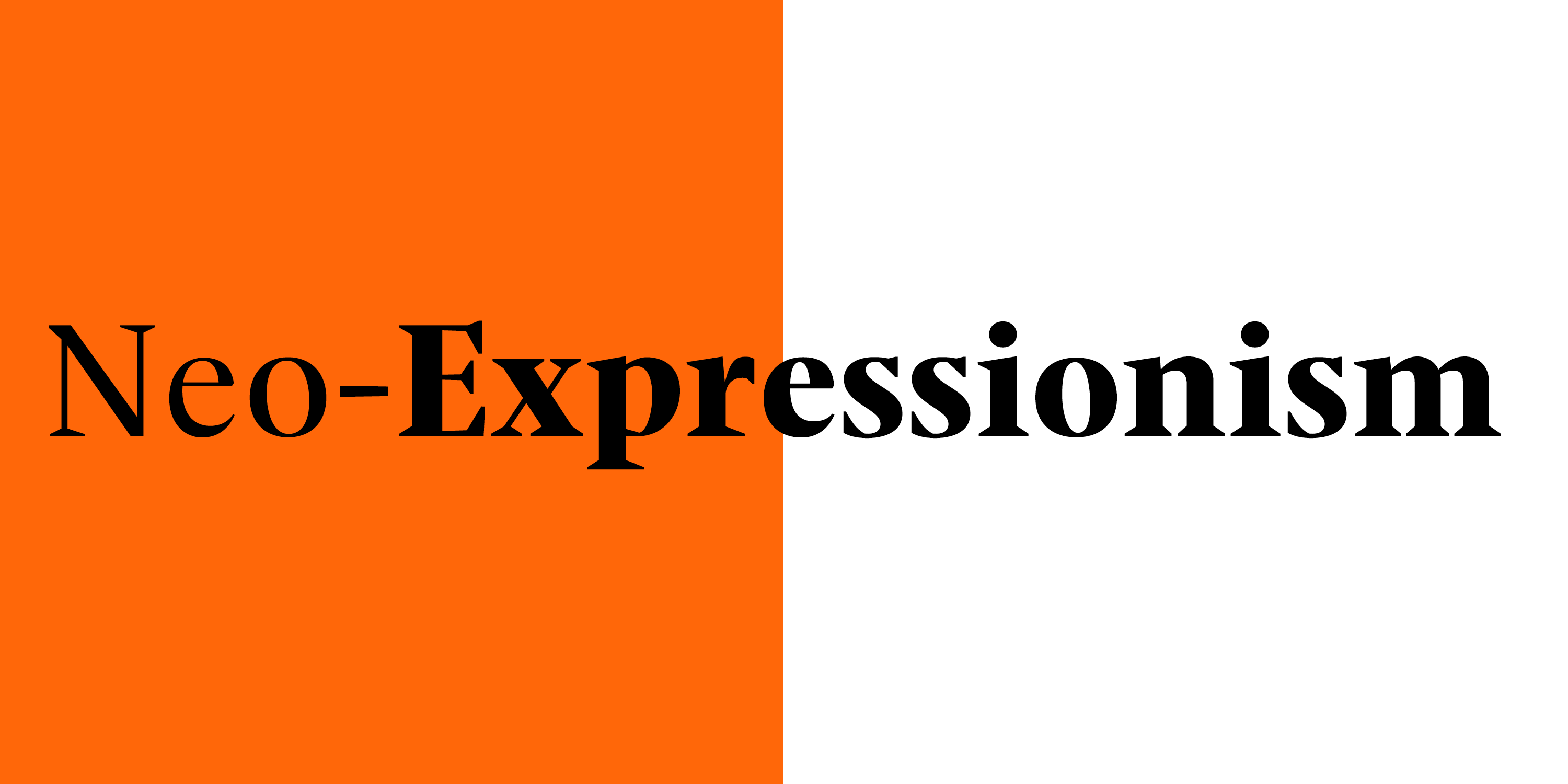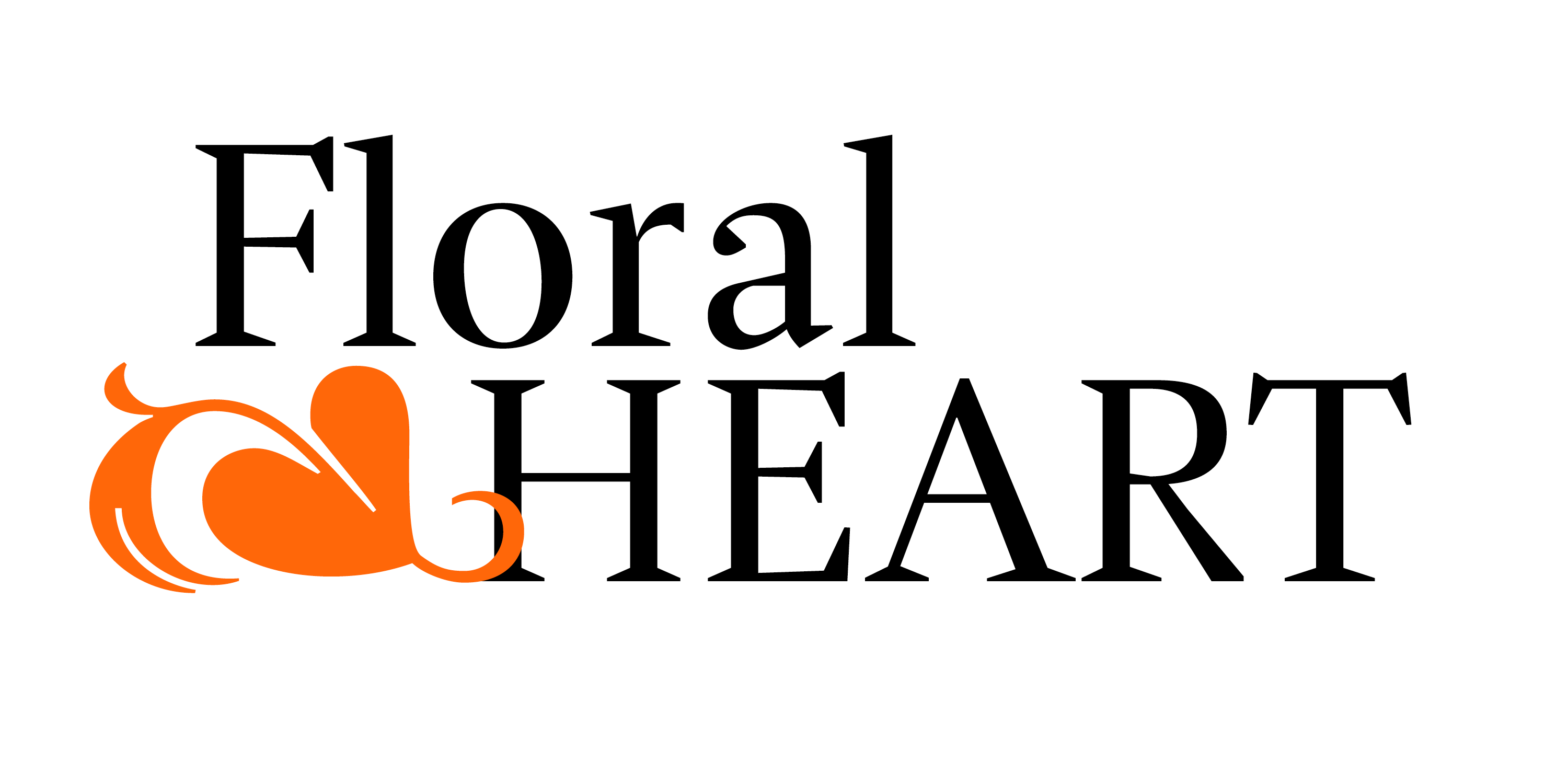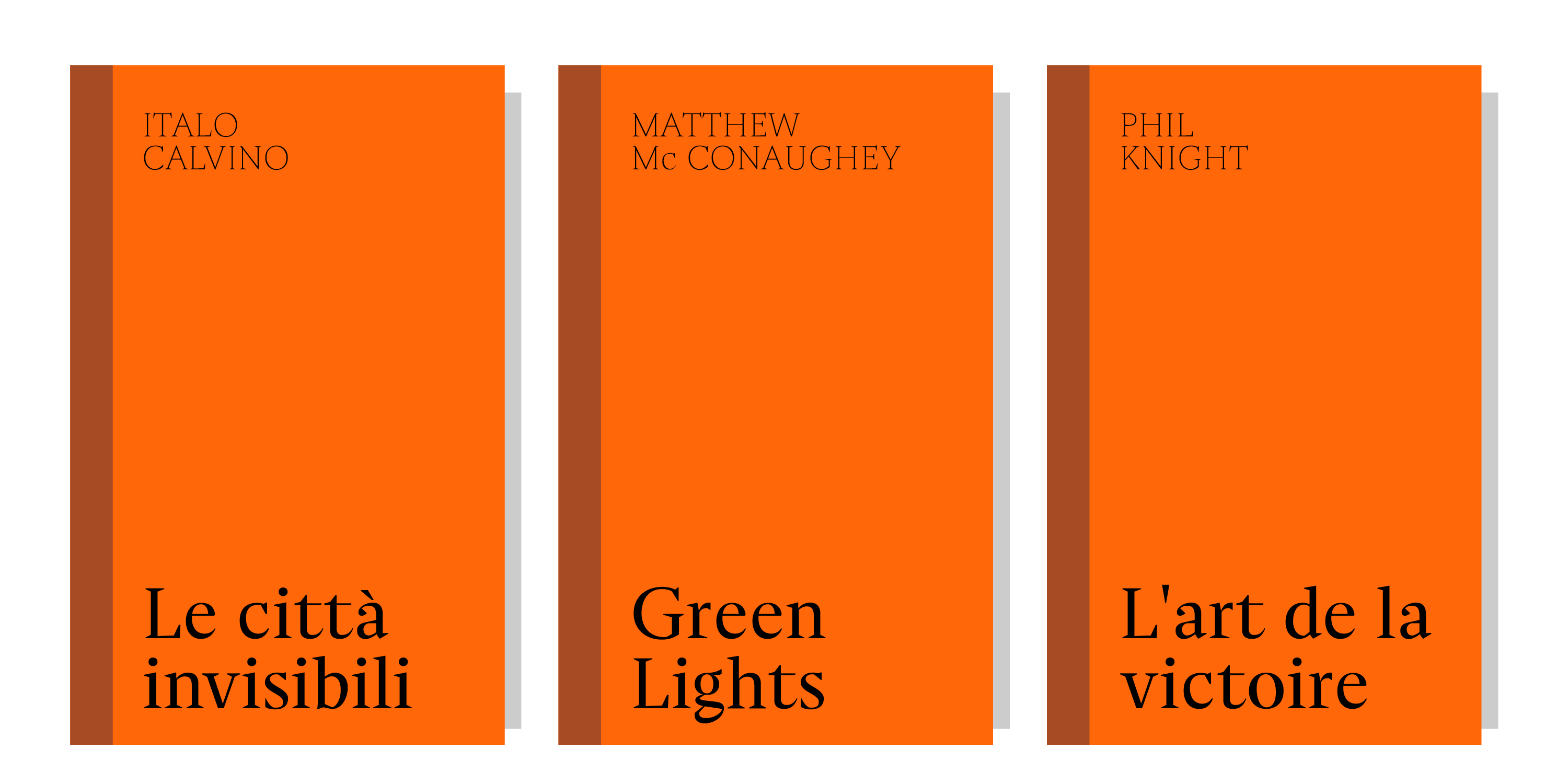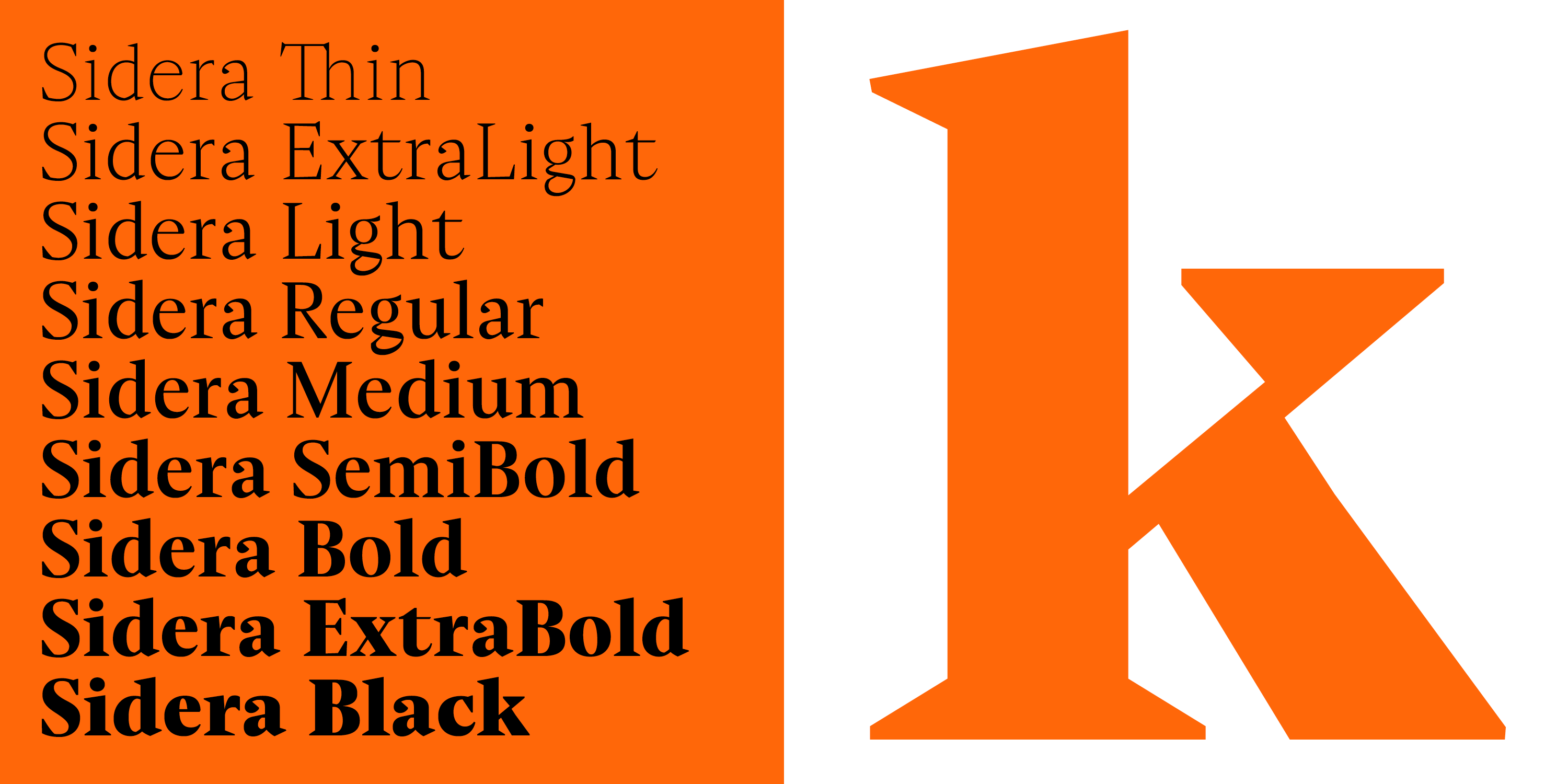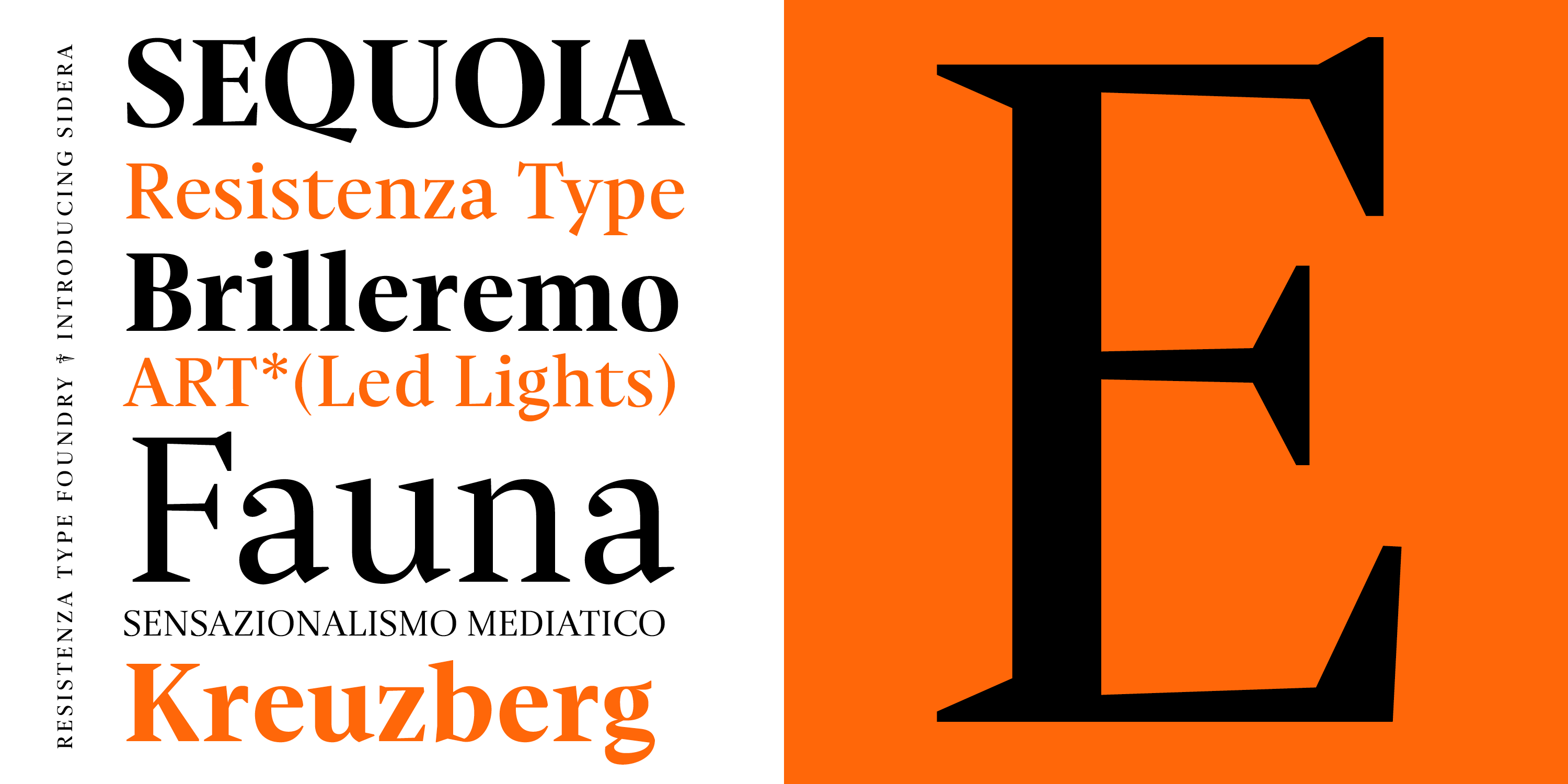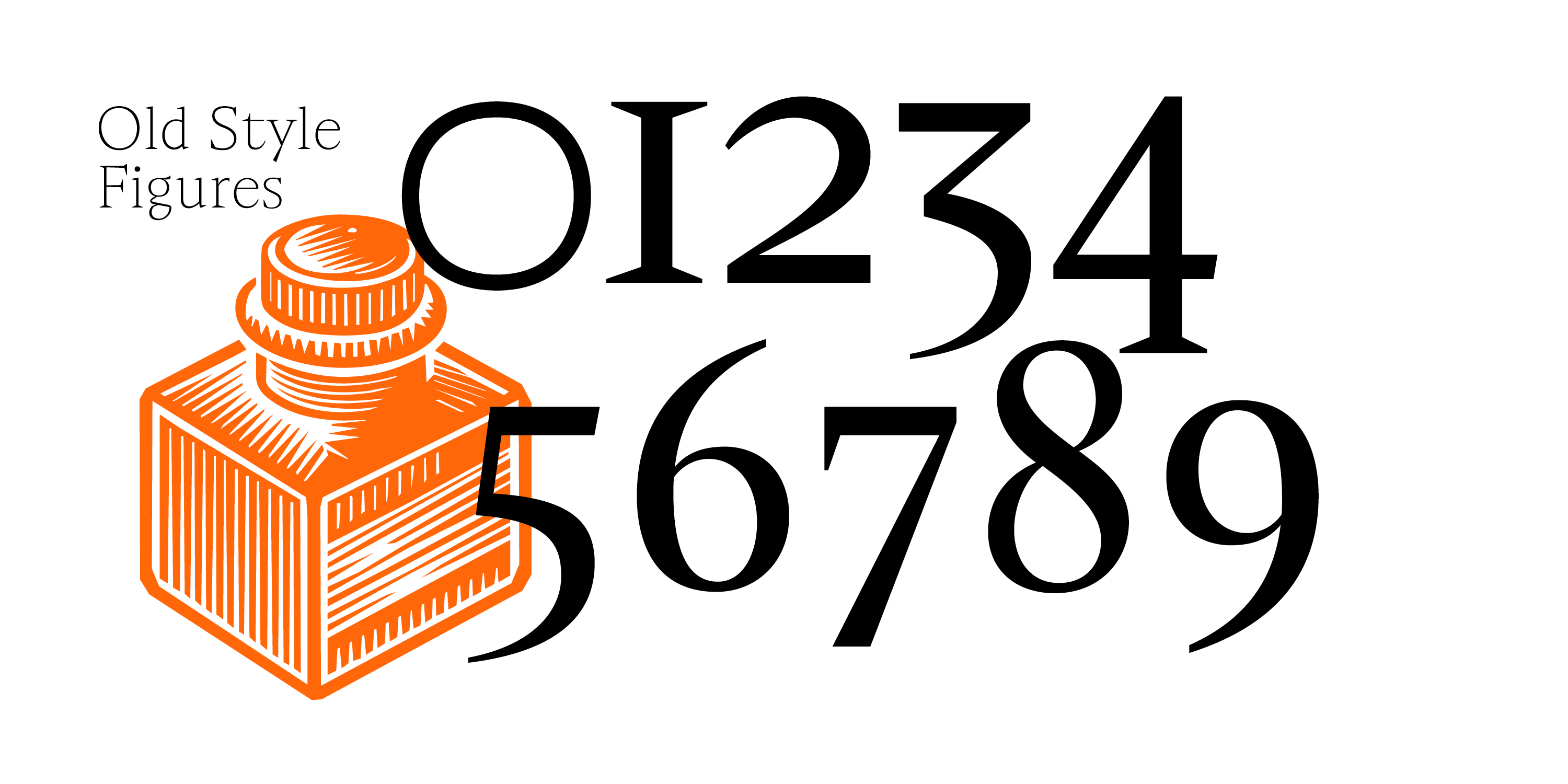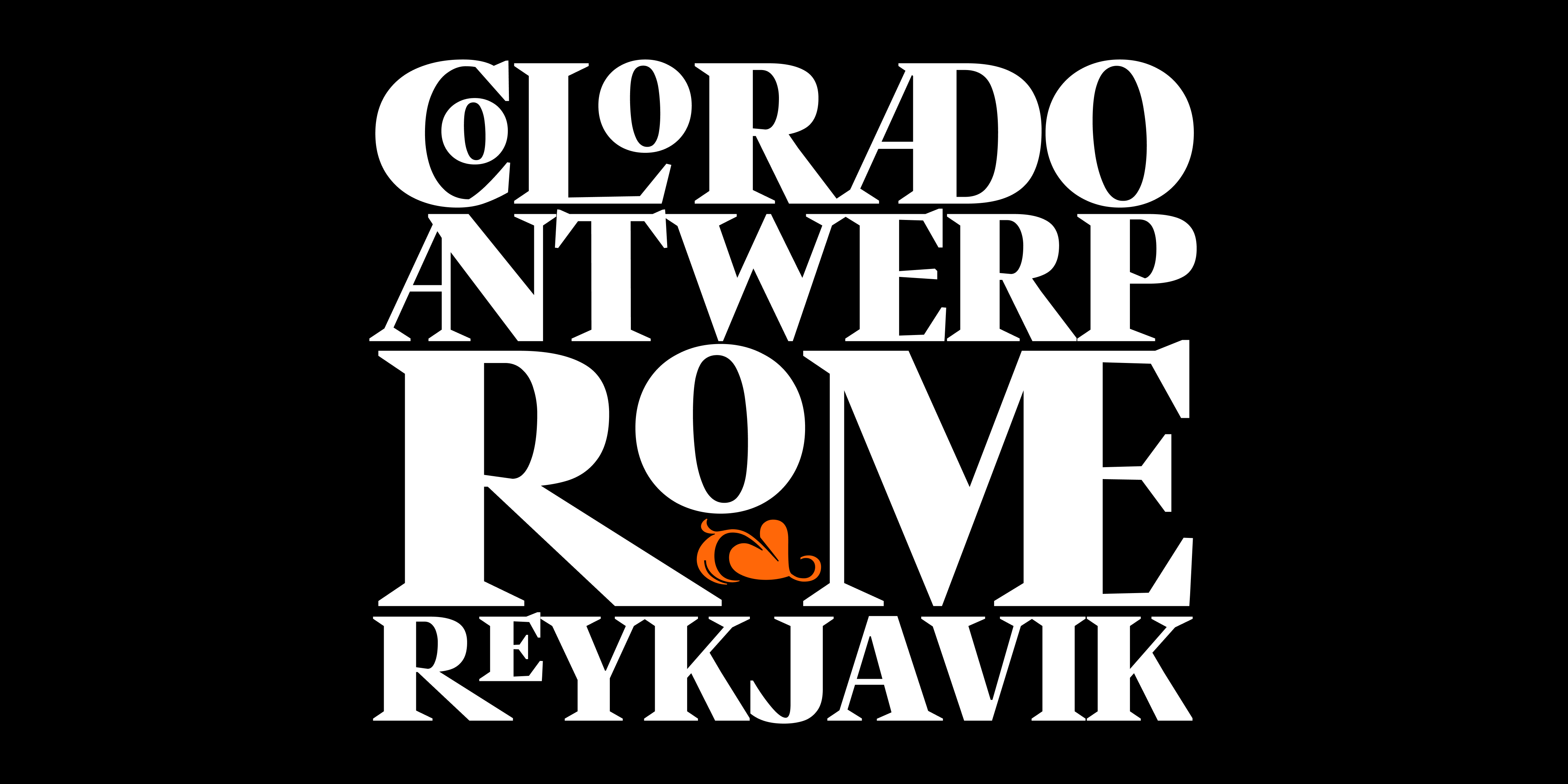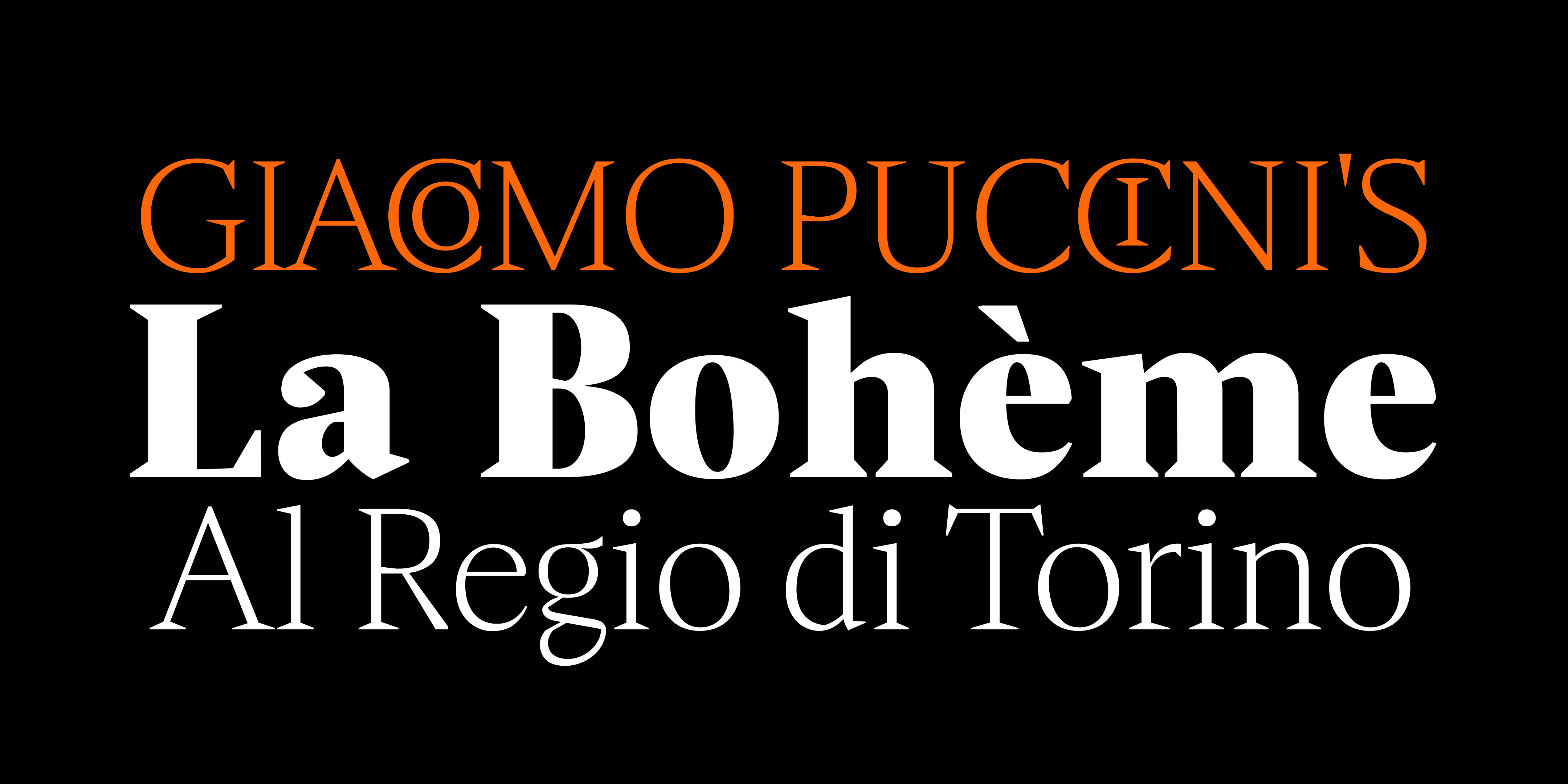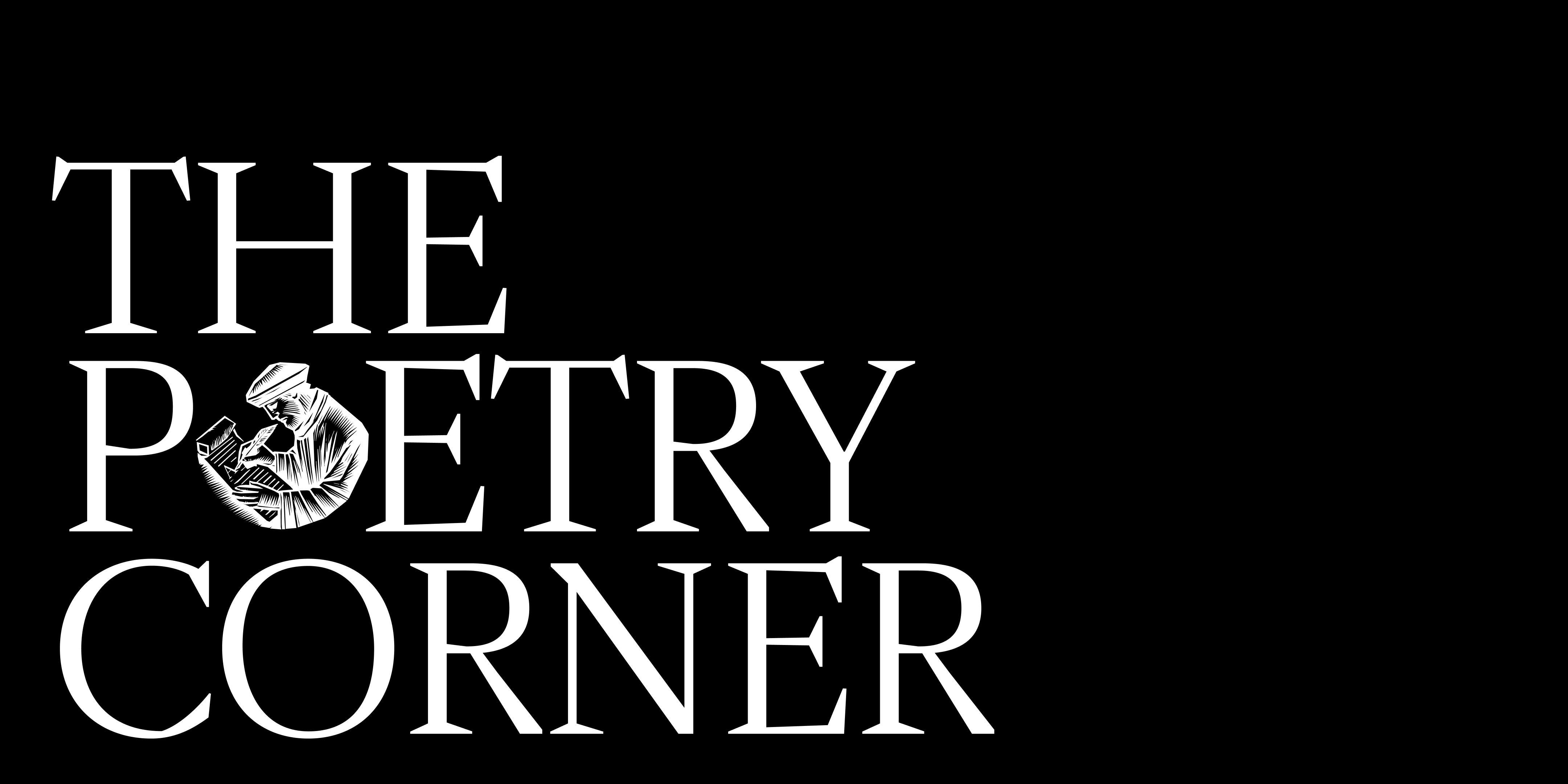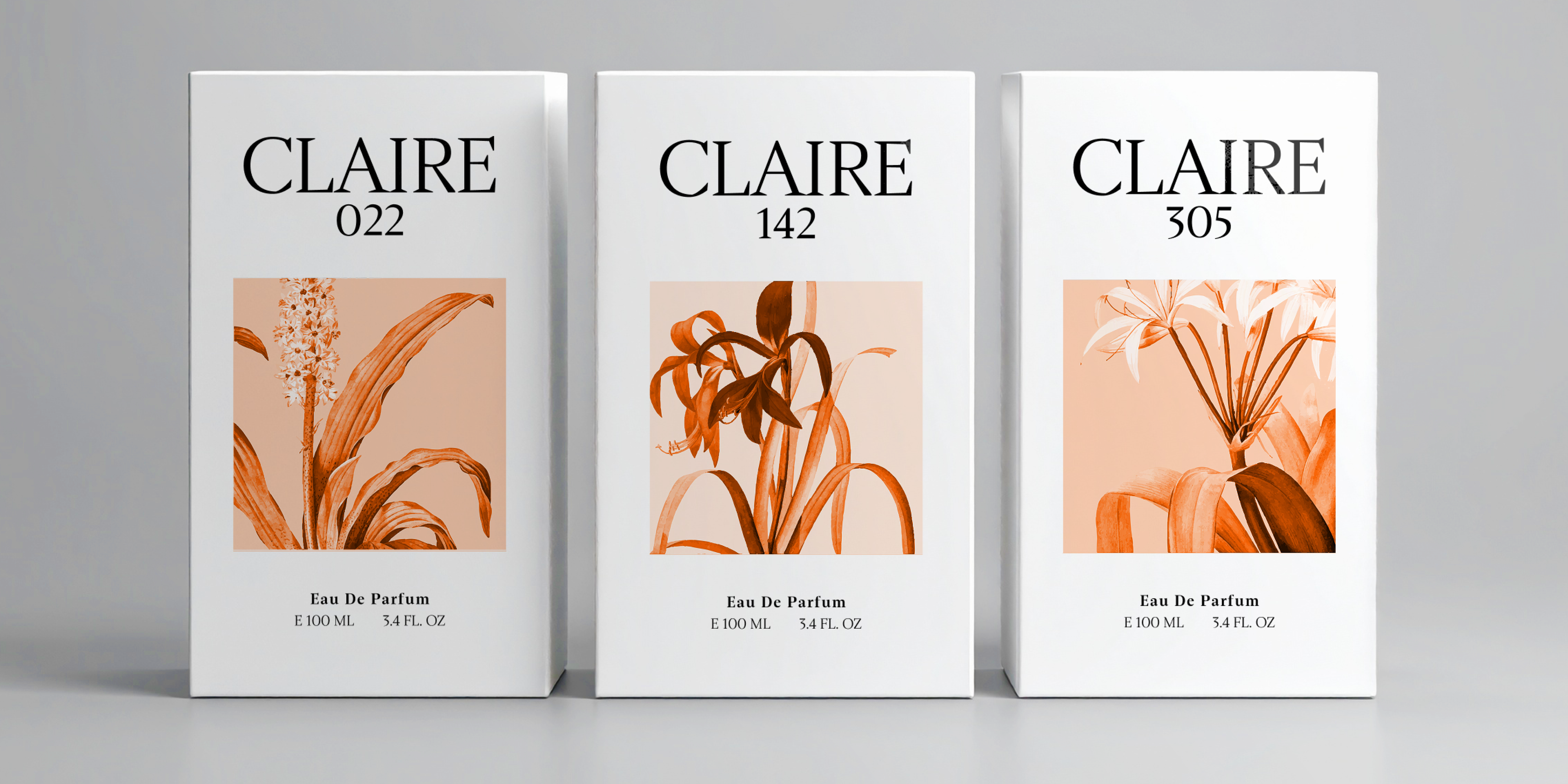
Sidera Collection
Sidera
Sidera Variable
Where Elegance Performs
Sidera
Designed by Resistenza Type Foundry
Sidera is a refined, high-contrast serif typeface with a strong editorial voice, crafted across nine expressive weights—from a delicate Thin to a commanding Black. Drawing inspiration from transitional serifs and calligraphic forms, it balances elegance with impact through sharp wedge serifs, flared terminals, and dynamic contrast. The family’s lightest weights bring grace and clarity, while the heavier styles deliver bold presence, ideal for headlines, branding, and storytelling. Sidera is well-suited for projects that require sophistication and expression—whether in magazines, cultural publications, luxury packaging, or typographic identities. With oldstyle figures and ornamental flourishes, it bridges classical beauty with contemporary design needs, making it a versatile tool for designers who value both style and substance.